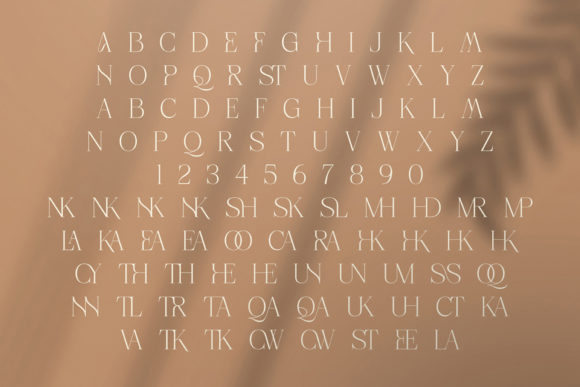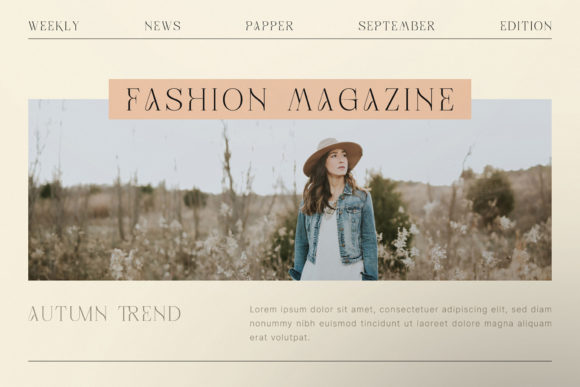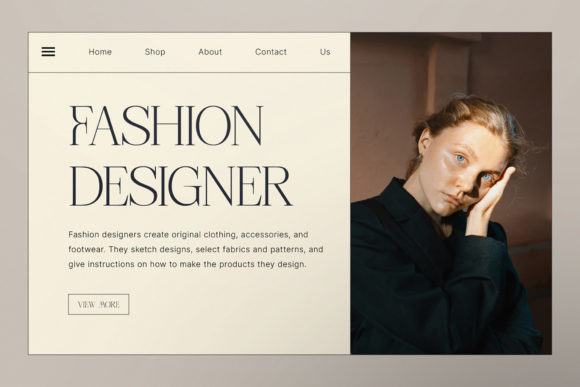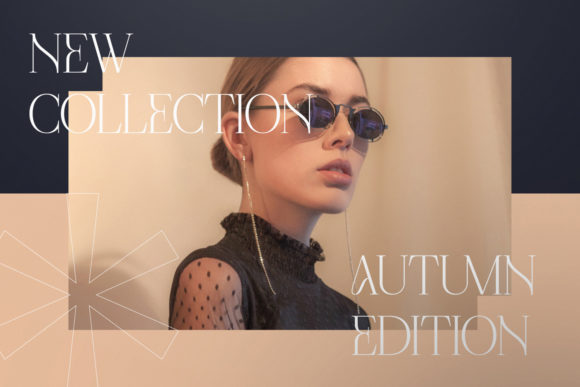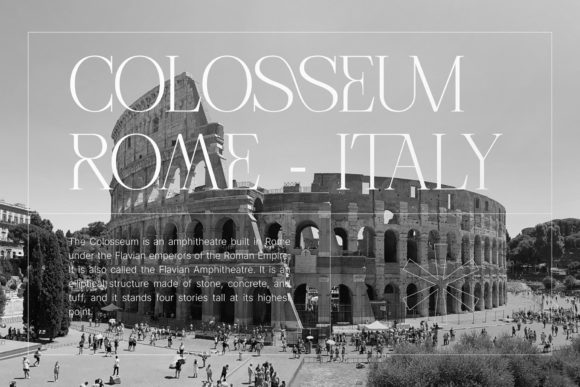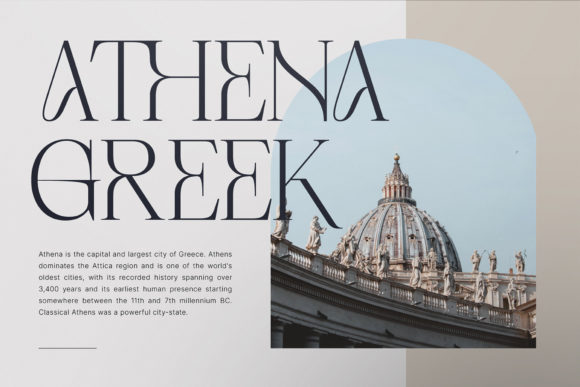
Aqala Font: Elevate Your Designs with a Unique Display Font
Are you looking for a font that can add a touch of elegance and sophistication to your designs? Look no further than Aqala Font, a beautiful and unique display font perfect for a wide range of creative projects. In this article, we’ll explore the features and benefits of Aqala Font, and how it can help you take your designs to the next level.
What is Aqala Font?
Aqala Font is a stunning display font that is designed to make your designs stand out. Its unique and elegant lettering style makes it perfect for editorial projects, logo design, clothing branding, product packaging, magazine headers, or simply as a stylish text overlay to any background image. With Aqala Font, you can add a touch of sophistication and glamour to any design, making it truly exquisite and outstanding.
Key Features of Aqala Font
Aqala Font comes with a range of features that make it a versatile and user-friendly font. Some of its key features include:
- PUA Encoding: Aqala Font is PUA encoded, which means you can access all of the glyphs and swashes with ease. This makes it easy to customize your designs and add unique touches.
- Unique Lettering Style: Aqala Font has a unique and elegant lettering style that is perfect for making a statement. Its distinctive letterforms will add a touch of sophistication to any design.
- Multipurpose: Aqala Font is a multipurpose font that can be used for a wide range of creative projects, from editorial design to logo design and product packaging.
Benefits of Using Aqala Font
So why should you choose Aqala Font for your designs? Here are just a few benefits of using this stunning display font:
- Elegance and Sophistication: Aqala Font adds a touch of elegance and sophistication to any design, making it perfect for high-end brands and luxury products.
- Versatility: Aqala Font is a versatile font that can be used for a wide range of creative projects, from editorial design to logo design and product packaging.
- Easy to Use: Aqala Font is easy to use and customize, thanks to its PUA encoding and user-friendly design.
- Experiment with Different Sizes and Colors: Aqala Font looks great in a variety of sizes and colors. Experiment with different combinations to find the one that works best for your design.
- Use it for Headings and Titles: Aqala Font is perfect for headings and titles. Use it to add a touch of elegance and sophistication to your designs.
- Pair it with Other Fonts: Aqala Font pairs well with a range of other fonts. Experiment with different combinations to find the one that works best for your design.
In conclusion, Aqala Font is a beautiful and unique display font that is perfect for a wide range of creative projects. Its elegant and sophisticated lettering style, combined with its PUA encoding and user-friendly design, make it a versatile and easy-to-use font. Whether you’re a designer, crafters, or DIY enthusiast, Aqala Font is a great choice for anyone looking to add a touch of elegance and sophistication to their designs.
- What is Aqala Font? Aqala Font is a beautiful and unique display font perfect for editorial projects, logo design, clothing branding, product packaging, magazine headers, or simply as a stylish text overlay to any background image.